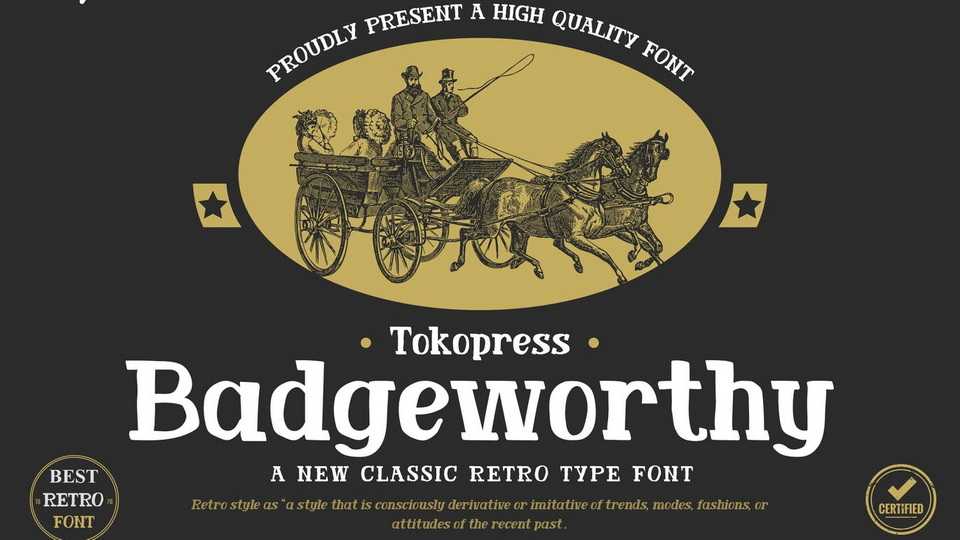
Download Badgworthy font, a retro serif typeface with a fand crafted feel. It’s classic, vintage and also feels like it was standing through times with the irregular lines.